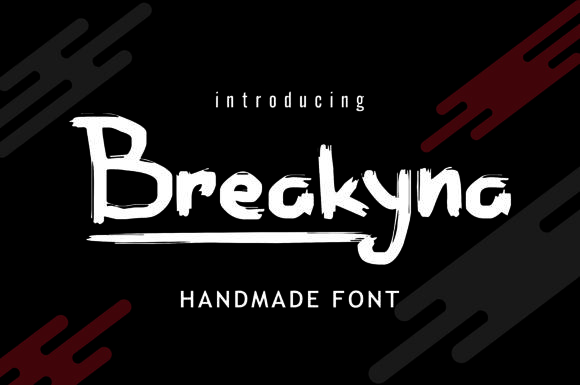
The Breakyna Font: A Fun and Bold Handmade Brush Font for Your Creative Projects
Have you ever been working on a design project, and suddenly, you’re stuck on finding the perfect font? I recall a recent experience where I was tasked with creating a poster for a music festival, and I just couldn’t find a font that captured the playful, energetic vibe of the event. That’s when I stumbled upon the Breakyna font, and it completely transformed my design. In this article, we’ll dive into the world of Breakyna, exploring its features, uses, and some helpful tips and tricks.
A Personal Review: What I Love About Breakyna
So, what makes Breakyna so special? Here are a few things that I absolutely love about this font:
- ✨ Unique and playful look: Breakyna has a bold and striking appearance that can instantly elevate your designs.
- ✅ Highly versatile: This font is perfect for a wide range of projects, including posters, web headers, book covers, packaging, and more.
- 💫 Handmade charm: Breakyna has a beautiful, handmade quality that gives it a personal touch.
While Breakyna is an amazing font, there are a few things to keep in mind:
- ⚠️ Legibility at small sizes: Like many script fonts, Breakyna can be a bit tricky to read at very small sizes.
- 🤔 Overuse of stylistic alternates: With so many stylistic alternates to choose from, it’s easy to get carried away and overuse them.
The Story Behind Breakyna
While the origins of Breakyna might be shrouded in mystery, it’s clear that this font was designed with creativity and playfulness in mind. Imagine a designer who loves music, art, and good vibes, sitting down to craft a font that captures the essence of a lively music festival. That’s Breakyna in a nutshell!
| Font Name | Breakyna Font |
| Author | Ahsancomp Studio |
| What type of projects is Breakyna best suited for? | Breakyna is perfect for posters, web headers, book covers, packaging, and any other design that needs a strong, bold typeface. |
| Is Breakyna a difficult font to read? | Like many script fonts, Breakyna can be a bit tricky to read at very small sizes or in large blocks of text. However, it’s perfect for titles, headings, and short paragraphs. |